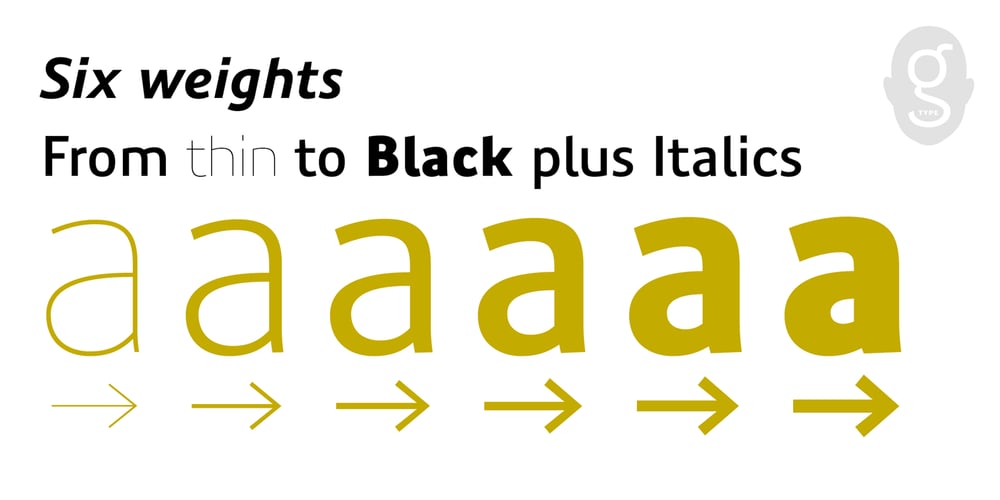
Precious Sans Two Font Family was designed by Nick Cooke and published by G-Type. Precious Sans Two contains 12 styles and family package options. Precious Sans Two is a complete reworking of the 2002 design which was only ever available in PostScript format. Over a decade later G-Type’s Nick Cooke decided to re-appraise the typeface, scrutinise the old letterforms and overhaul the family. Make no mistake though, Precious Sans Two is no rudimentary re-release; nearly every character has been redrawn, re-proportioned, respaced and improved. Precious Sans Two is now in cross-platform compatible OpenType format with extended Latin language support for Western & Central Europe, the Baltics & Turkey. The original quirkier glyphs (f, g, I) have been retained as an OT style set feature and the typeface now contains small caps and an extensive set of discretionary ligatures as well as both proportional & tabular figures. The character set is further enhanced with the addition of 20 directional single and double arrows in each of the six weights which range from Thin through to Black, all with accompanying italics. Precious Sans Two is a distinctively modern typeface, well equipped for advanced typographic use in print, web and digital publishing environments.